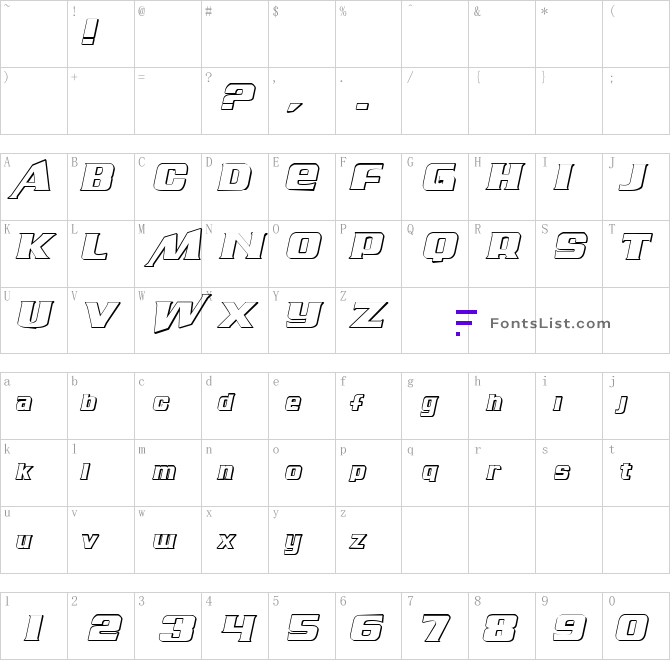
- Font Name:Air Millhouse Outline
Air-Millhouse-Outline.ttf is a very beautiful artistic font, Air-Millhouse-Outline.ttf is widely used in the design and printing of various books and pictures,Air-Millhouse-Outline.ttf has a strong visual impact,Air-Millhouse-Outline.ttf is a commonly used font in newspapers, magazines and books, and is used in posters, e-commerce Poster design, store design, logo design, font design and other fields.Air-Millhouse-Outline.